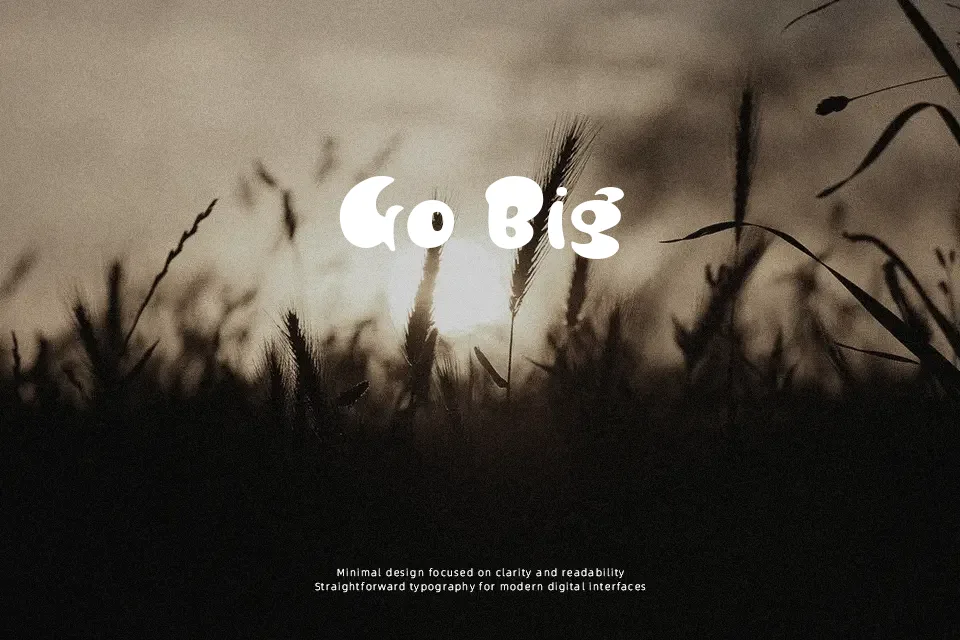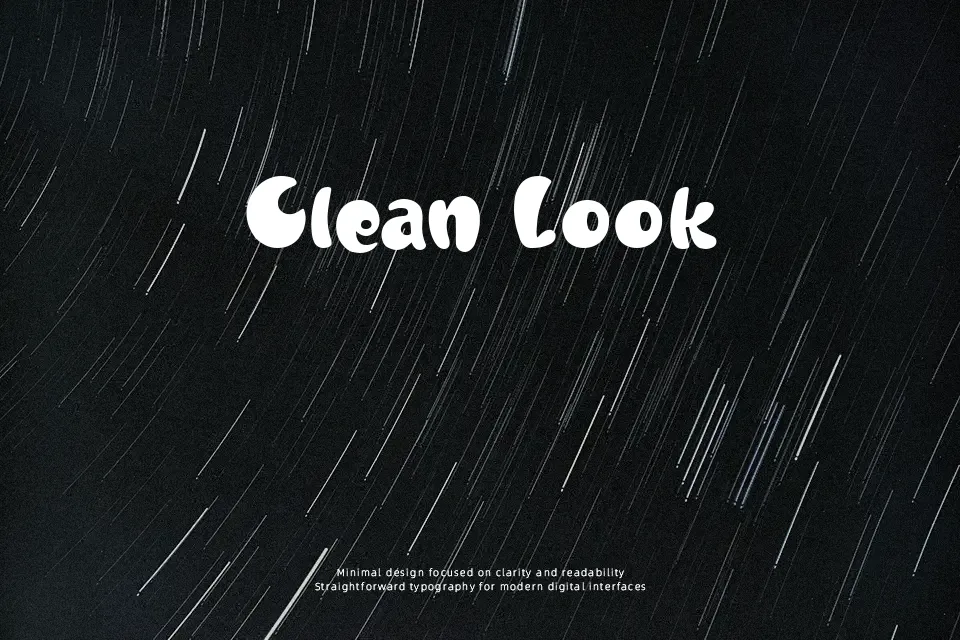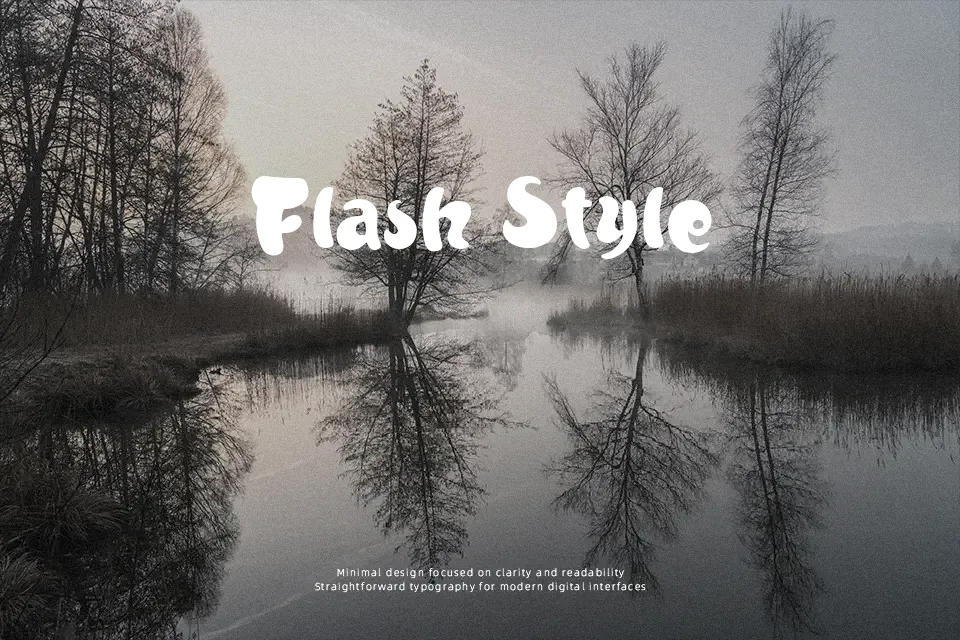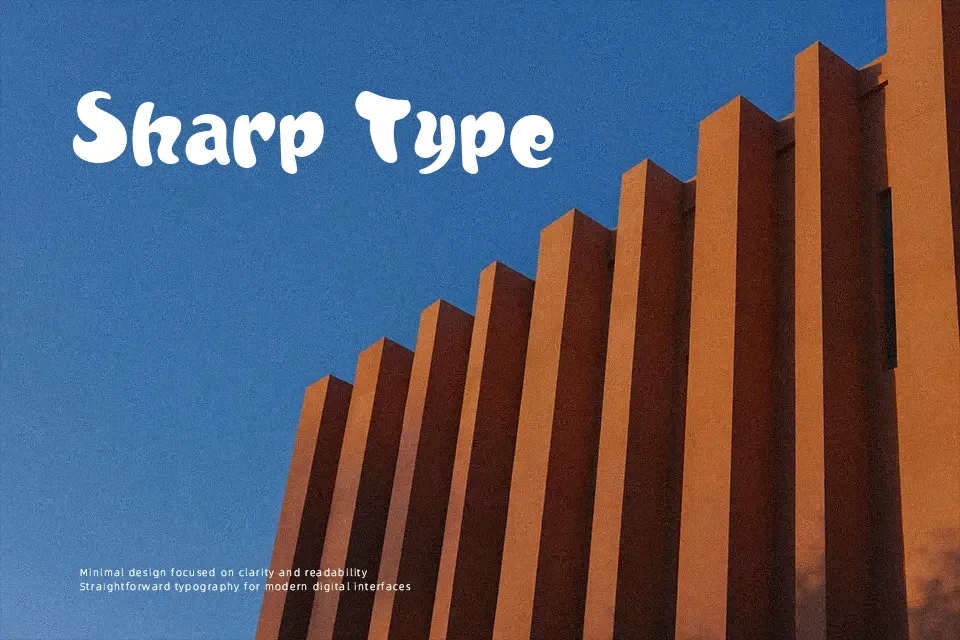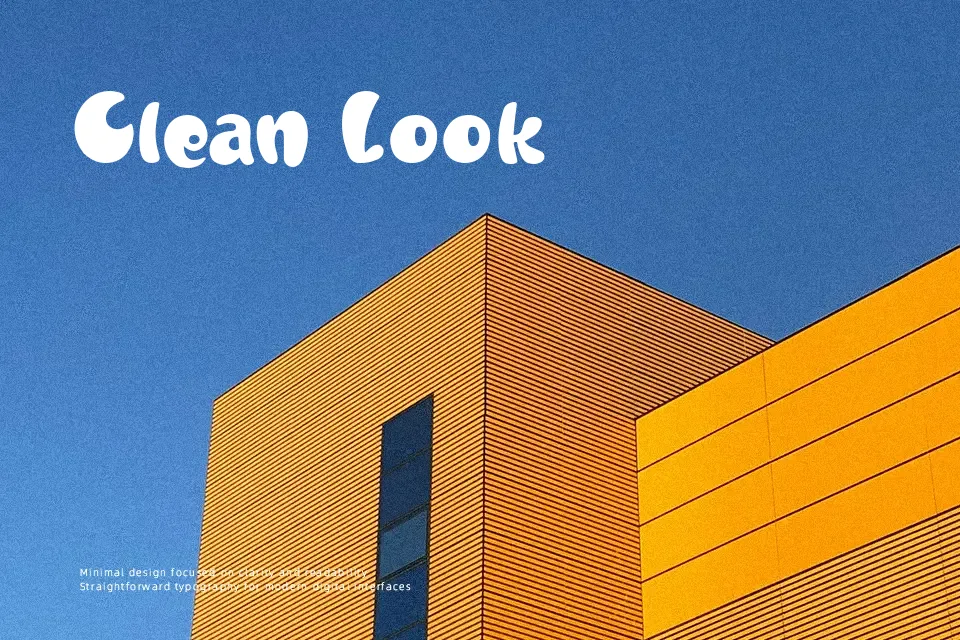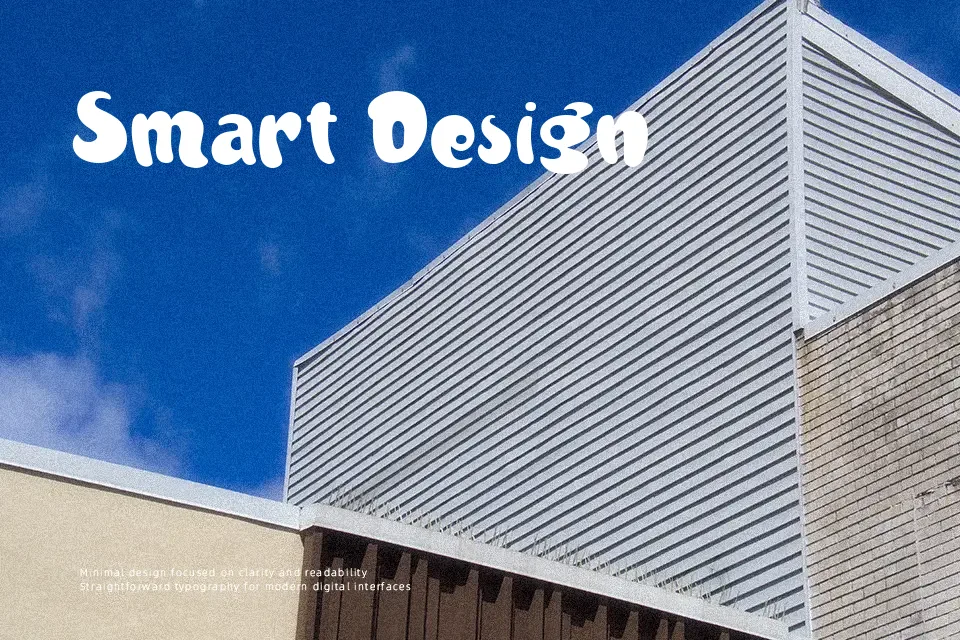
Airtiris Scooper Font
Designed by Risal Dan
Rounded strokes, thick letterforms, and a consistent heavy weight give Airtiris Scooper a cheerful, almost bouncy energy that reads more like a shout than a whisper. The groovy character construction leans into vintage playfulness — think music festival flyers or youth-oriented packaging where tone matters as much as legibility. It holds up well at large display sizes where its bubbly personality can breathe, but falls apart at small sizes or in dense text settings where the thick strokes bleed together. If you need a font to carry a lighthearted retro mood in a headline, this delivers — but if you’re after versatility across weights and sizes, look elsewhere. The lack of a commercial license is also a practical barrier for paid projects.
Best For:- Retro music event posters or flyers
– Youth brand social media headers
– Kids’ product packaging titles
– Casual logo concepts for personal projects
Not Ideal For:- Body text or multi-line paragraph content
– Corporate identity or professional branding
– Small-size print applications
Perfect for headline, kids, and logo, with a bold and decorative style.